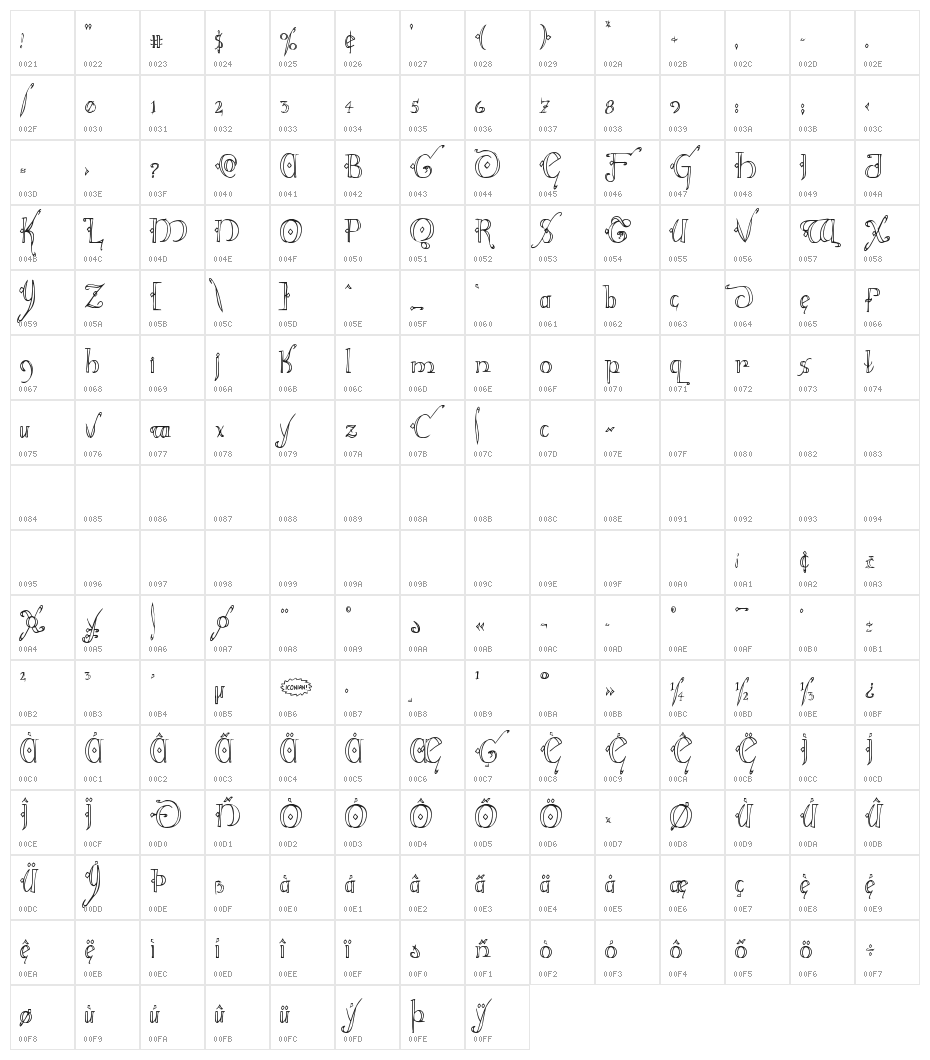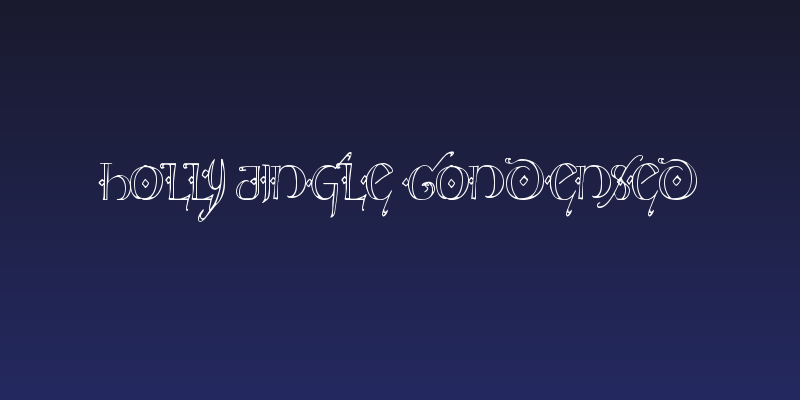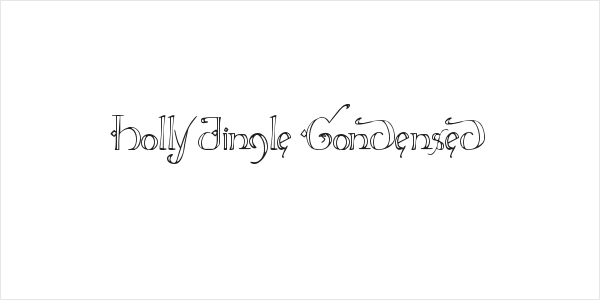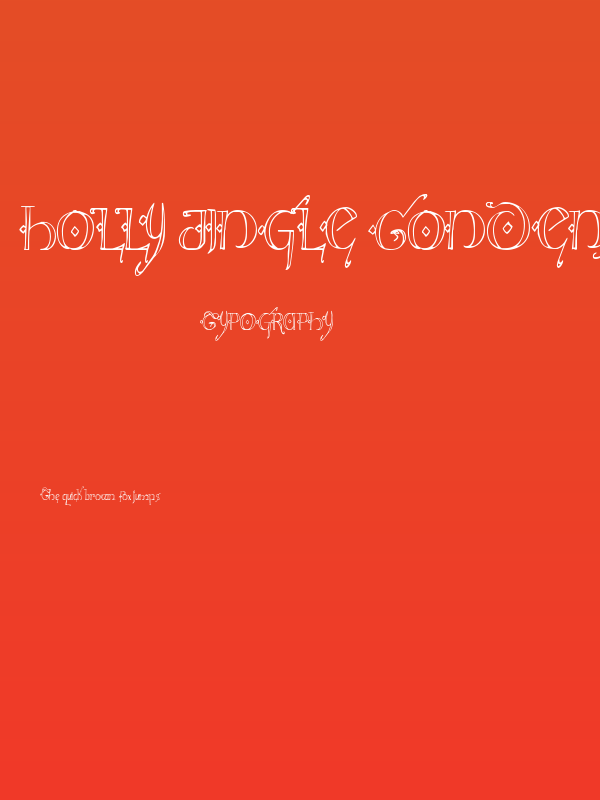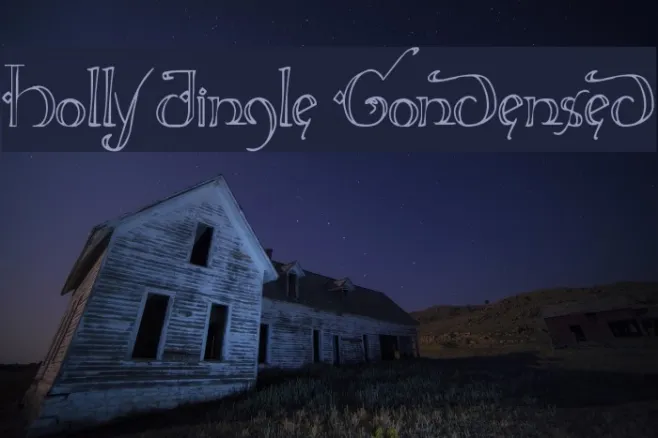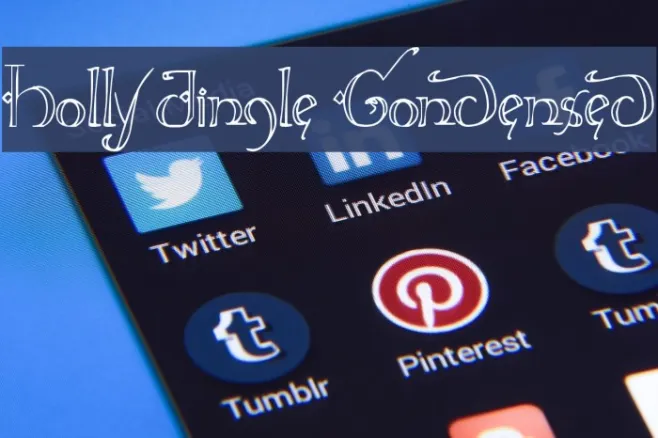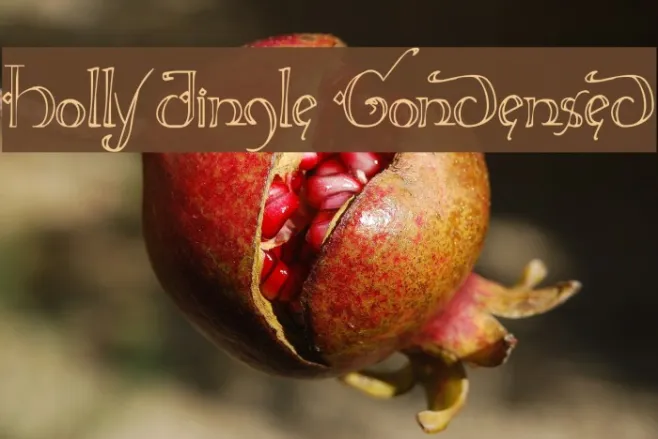
Holly Jingle Condensed Font
Holly Jingle Condensed Description
This decorative font features a whimsical and festive design, characterized by its intricate and playful curves. Each letter is adorned with unique embellishments, giving it a lively and ornate appearance. The font maintains a consistent style across uppercase, lowercase, and numerals, with special characters also reflecting the same decorative flair. Its condensed nature allows for compact text arrangements, making it suitable for creative and eye-catching designs. The overall aesthetic is reminiscent of holiday cheer, making it ideal for seasonal projects.
| Use Case | Headlines, Logos, Decorative text |
| Proposed Projects | Ideal for holiday cards, festive invitations, decorative posters, and playful branding. |